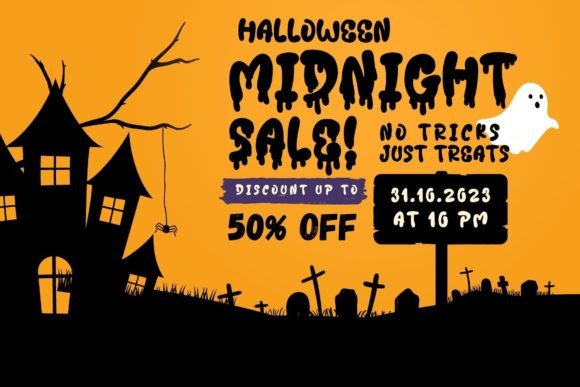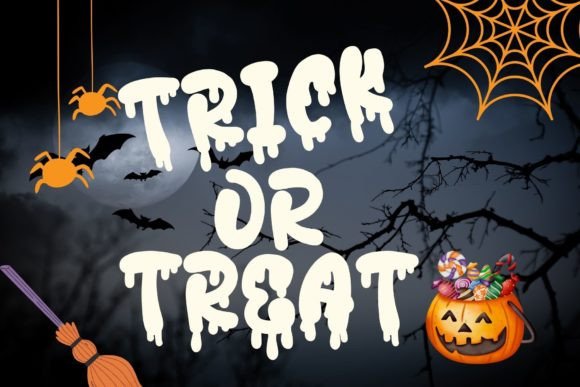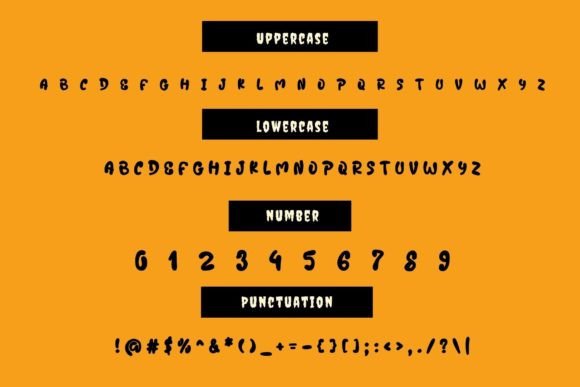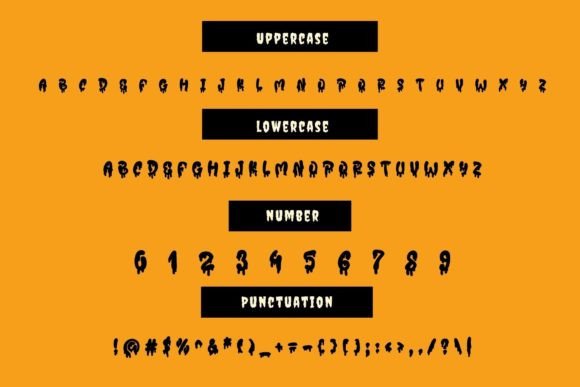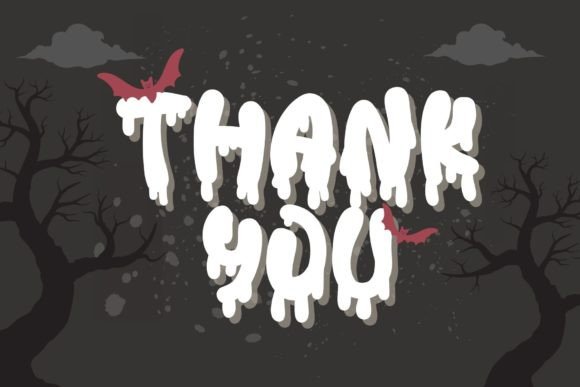
Unleash the Spirit of Halloween with a Font that’s to Die For
As the sun sets on a crisp autumn evening, and the moon casts an eerie glow, you can’t help but feel the thrill of Halloween in the air. It’s the perfect time to unleash your creativity and let your imagination run wild. For designers, the challenge is to craft an atmosphere that’s both haunting and inviting, and that’s where the Helloween Blood Font comes in.
This font is more than just a typeface – it’s an immersive experience that transports your audience to a world of horror and suspense. With its blood-dripping letters and skeletal designs, the Helloween Blood Font is the perfect choice for creating invitations, postcards, posters, and headings that are sure to leave a lasting impression. Whether you’re designing for a Halloween event or just want to add a touch of eeriness to your next project, this font is an absolute must-have.
Helloween Blood Font Key Features
- Font Family: Helloween Blood Font is a sans-serif font family.
- Unique Characteristics: The font features a bold, gothic-inspired design with a distinctive blood-like effect, making it ideal for horror, punk, or alternative-themed projects.
Helloween Blood Font Review
Overall, I was quite excited to try out the Helloween Blood Font. As a designer, I appreciate the attention to detail and the unique aesthetic it brings to the table.
What works well: ✨ The font’s gothic-inspired design is perfect for creating a spooky or dark atmosphere, making it ideal for Halloween-themed projects, horror movies, or heavy metal bands.
✨ The font’s bold and intricate details add a level of sophistication, making it suitable for use in posters, flyers, and other promotional materials.
✨ The font is highly customizable, allowing users to adjust the size, color, and spacing to fit their specific needs.
⚠️ The font’s complexity can make it difficult to read for some users, particularly in smaller sizes or at a distance.
⚠️ The font’s design may not be suitable for all types of projects, such as business cards or resumes, due to its bold and attention-grabbing nature.
⚠️ The font’s customization options can be overwhelming for users who are not familiar with font editing software.
While the Helloween Blood Font has its limitations, its unique design and customization options make it a valuable addition to any designer’s toolkit. With proper use, it can add a level of creativity and sophistication to a project that is hard to find elsewhere.
Tips for Getting the Most Out of Helloween Blood Font
For the best results, use Helloween Blood Font in bold or italic styles to add emphasis.
Combine Helloween Blood Font with other fonts to create a unique and eye-catching design.
Experiment with different font sizes and colors to create a visually appealing effect.
Helloween Blood Font is perfect for